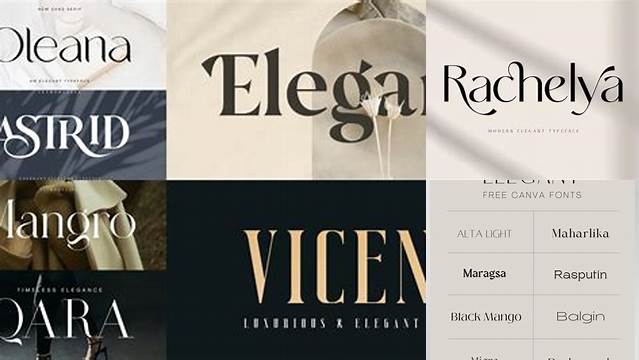
Free Modern Elegant Fonts: Download Now!
Hey guys! Are you on the hunt for modern elegant fonts that you can download for free? You've come to the right place! In this article, we’re diving deep into the world of typography, exploring a wide range of stylish fonts that can elevate your design projects. Whether you’re working on a website, a branding project, or a simple invitation, the right font can make all the difference. So, let’s get started and find the perfect typeface for your next masterpiece!
1. What Makes a Font “Modern Elegant”?
When we talk about modern elegant fonts, we’re usually referring to typefaces that blend contemporary design elements with classic sophistication. These fonts often feature clean lines, balanced letterforms, and a certain refinement that makes them stand out. Think about the fonts you see in high-end magazines or luxury brand logos – those are often excellent examples of modern elegance. They strike a balance between being stylish and readable, making them versatile for various applications. In essence, a modern elegant font should convey a sense of sophistication without feeling outdated or overly ornate. It’s about achieving a timeless look that still feels fresh and current.
2. Why Choose Modern Elegant Fonts for Your Projects?
Choosing modern elegant fonts for your projects can significantly impact the overall aesthetic and message you're trying to convey. These fonts often communicate sophistication, professionalism, and attention to detail. Using them can instantly elevate the perceived value of your brand or design. Imagine using a sleek, minimalist font for a business card versus a generic, overused typeface – the difference in impression is substantial. Moreover, modern elegant fonts are versatile, working well across various media from digital platforms to print materials. They provide a sense of polish and refinement that can help your content stand out in a crowded marketplace. So, if you’re aiming for a high-end, contemporary feel, these fonts are definitely the way to go!
3. Top Websites to Download Free Modern Elegant Fonts
Finding the best modern elegant fonts can sometimes feel like searching for a needle in a haystack, but don't worry, I've got you covered! There are several fantastic websites where you can download high-quality fonts for free. Some popular options include Google Fonts, which offers a vast library of open-source fonts perfect for any project. Another great resource is Font Squirrel, known for its curated selection of free fonts that are also commercially licensed. DaFont and Behance are also excellent places to discover unique and stylish typefaces. When browsing these sites, be sure to check the licensing terms to ensure the font is free for your intended use. Happy font hunting!
4. Popular Font Styles: Serif, Sans-Serif, and Script
When exploring modern elegant fonts, you'll quickly encounter different font styles like serif, sans-serif, and script. Each style brings its own unique flavor to the table. Serif fonts, with their little decorative strokes, often convey a sense of tradition and formality. Think of fonts like Times New Roman or Garamond. Sans-serif fonts, on the other hand, are more minimalist and contemporary, perfect for a clean and modern look. Arial and Helvetica are classic examples. Script fonts mimic handwriting and can add a touch of elegance and personality, but they should be used sparingly to maintain readability. Understanding these differences will help you choose the modern elegant font that best fits your project's needs and style.
5. Modern Serif Fonts for a Classic Touch
If you’re aiming for a touch of classic sophistication, modern serif fonts are an excellent choice. These fonts blend the traditional elegance of serifs with contemporary design principles. Think of fonts like Playfair Display or Lora, which feature graceful letterforms and a refined appearance. Modern serif fonts work wonderfully for headlines, body text, and branding materials where you want to convey a sense of history and sophistication without feeling dated. They add a touch of formality and readability, making them a versatile option for various projects. Whether you’re designing a book cover, a website, or a logo, a well-chosen modern serif font can truly elevate your design.
6. Sans-Serif Fonts: Clean and Contemporary
For a clean, minimalist, and contemporary look, sans-serif fonts are the way to go. These fonts lack the decorative strokes (serifs) found in traditional typefaces, giving them a streamlined and modern appearance. Popular examples include Montserrat, Open Sans, and Lato. Sans-serif fonts are incredibly versatile and work well in a variety of contexts, from website body text to logo designs. Their simplicity makes them highly readable, especially on screens, making them a favorite choice for digital projects. If you want your design to feel fresh, modern, and approachable, a well-chosen sans-serif font is an excellent starting point.
7. Elegant Script Fonts for Special Occasions
When you want to add a touch of personality and flair, elegant script fonts are the perfect choice. These fonts mimic the fluidity of handwriting, bringing a sense of sophistication and charm to your designs. Think of fonts like Great Vibes, Pacifico, or Allura. Elegant script fonts are ideal for invitations, wedding materials, and branding projects where you want to convey a sense of warmth and personal touch. However, it’s important to use them sparingly, as they can be less readable in large blocks of text. When used correctly, a beautiful script font can add a touch of magic to your project.
8. Monoline Fonts: Simplicity and Style
Monoline fonts are characterized by their consistent stroke weight, meaning the thickness of the lines remains uniform throughout the letters. This gives them a clean, minimalist, and geometric appearance, making them a popular choice for modern designs. Monoline fonts often convey a sense of simplicity and style, perfect for logos, headlines, and branding materials. They are highly readable and work well in both digital and print contexts. If you’re looking for a font that is both modern and understated, exploring monoline options like Montserrat or Raleway could be a great choice.
9. Geometric Fonts: Modern and Structured
Geometric fonts are built on basic geometric shapes like circles, squares, and triangles. This construction gives them a structured, modern, and often futuristic feel. Fonts like Futura, Avant Garde, and Gotham are classic examples of this style. Geometric fonts are highly versatile and work well for logos, headlines, and body text, especially in designs that aim for a clean and minimalist aesthetic. They convey a sense of precision and order, making them an excellent choice for tech companies, corporate branding, and contemporary designs.
10. Minimalist Fonts: Less is More
In the world of design, sometimes less is more, and minimalist fonts perfectly embody this philosophy. These fonts are characterized by their simplicity, clean lines, and lack of embellishment. They prioritize readability and functionality, making them a popular choice for modern websites, logos, and branding materials. Minimalist fonts like Helvetica, Open Sans, and Lato offer a timeless aesthetic that can help your message stand out without unnecessary distractions. If you’re aiming for a sleek, uncluttered design, minimalist fonts are a fantastic option.
11. Best Free Fonts for Headlines
Headlines are your chance to grab attention, so choosing the right font is crucial. The best free fonts for headlines are those that are bold, legible, and make a statement. Think about fonts like Bebas Neue, Montserrat, or Oswald. These typefaces have strong personalities and can draw the reader’s eye. When selecting a free font for headlines, consider the overall tone and style of your project. A modern sans-serif might be perfect for a tech blog, while a more elegant serif font could suit a lifestyle magazine. The key is to find a font that communicates your message clearly and effectively.
12. Top Free Fonts for Body Text
Readability is king when it comes to body text, so you’ll want to choose fonts that are easy on the eyes. Some of the top free fonts for body text include Open Sans, Lato, and Roboto. These fonts are designed for comfortable reading, even in long passages. They feature clean, simple letterforms and generous spacing. When selecting free fonts for body text, consider the overall aesthetic of your project. A sans-serif font is often a safe bet for online content, while a classic serif like Times New Roman can work well in print. Ultimately, the best font is the one that makes your content accessible and enjoyable to read.
13. How to Pair Modern Elegant Fonts
Pairing fonts effectively is an art, but it’s essential for creating a cohesive and visually appealing design. When working with modern elegant fonts, a good rule of thumb is to combine a serif font with a sans-serif font. For example, you might pair a bold serif font for headlines with a clean sans-serif for body text. This creates a pleasing contrast while maintaining readability. Another approach is to use different weights and styles within the same font family. For instance, using a bold version of a font for headings and a lighter version for body text can create a harmonious look. The key is to ensure that the fonts complement each other and enhance the overall aesthetic of your design.
14. Font Licensing: What You Need to Know
Understanding font licensing is crucial before you start using any font in your projects. Font licenses dictate how you can legally use a particular typeface. Some fonts are free for personal use only, while others can be used commercially. Always check the licensing terms before downloading and using a font. Many websites that offer free modern elegant fonts will clearly state the license type. Common licenses include Open Font License (OFL), which allows for free commercial use, and various types of shareware or freeware licenses that may have restrictions. Ignoring font licenses can lead to legal issues, so it’s always better to be informed.
15. Tips for Choosing the Right Font for Your Brand
Selecting the right font for your brand is a critical step in establishing your visual identity. Your font choice should align with your brand’s personality, values, and target audience. For modern elegant fonts, consider how the typeface conveys sophistication and professionalism. A sleek sans-serif font might be perfect for a tech startup, while an elegant serif could suit a luxury brand. Think about your brand’s message and how the font can reinforce it. Test different fonts and get feedback to ensure your choice resonates with your audience and accurately represents your brand.
16. Font Size and Readability Considerations
Choosing the right font is just one part of the equation; you also need to consider font size and readability. Even the most beautiful modern elegant fonts can be rendered ineffective if they are too small or difficult to read. For body text, aim for a font size that is comfortable to read on various devices, typically around 16-18 pixels for web content. Headlines should be larger and bolder to grab attention. Pay attention to line height and letter spacing, as these can significantly impact readability. Always test your font choices on different screens and devices to ensure they look good and are easy to read.
17. Kerning, Leading, and Tracking: Key Typography Terms
To truly master typography, it’s helpful to understand terms like kerning, leading, and tracking. Kerning refers to the spacing between individual letters, and adjusting it can improve readability and visual harmony. Leading (pronounced “ledding”) is the vertical space between lines of text, and proper leading can make long passages easier to read. Tracking, also known as letter-spacing, is the uniform spacing between all letters in a word or block of text. Mastering these concepts will help you fine-tune your modern elegant fonts and create professional-looking designs.
18. How to Install Fonts on Windows and macOS
Once you’ve downloaded your free modern elegant fonts, you’ll need to install them on your computer. The process is straightforward on both Windows and macOS. On Windows, simply right-click the font file and select “Install.” On macOS, double-click the font file, and it will open in Font Book, where you can click “Install Font.” After installation, the font should be available in your design software. If you encounter any issues, restarting your computer or design program can often resolve the problem. Now you’re ready to start using your new fonts!
19. Using Font Management Software
If you work with a lot of fonts, using font management software can be a game-changer. These tools help you organize, activate, and deactivate fonts, making it easier to find and use the modern elegant fonts you need. Popular options include FontBase, NexusFont, and RightFont. Font management software can also help you avoid font conflicts and keep your system running smoothly. They often offer features like font previews, tagging, and syncing across devices. Investing in a good font manager can save you time and frustration in the long run.
20. Creating a Font Mood Board
Before diving into a design project, creating a font mood board can be a fantastic way to explore different typefaces and find the perfect fit. Gather examples of modern elegant fonts that you find appealing and arrange them in a visual collage. This can include screenshots of fonts used in existing designs, sample text in different typefaces, and color palettes that complement the fonts. A font mood board helps you visualize how different fonts work together and how they align with your project’s overall aesthetic. It’s a great way to inspire your creativity and make informed font choices.
21. Exploring Google Fonts: A Treasure Trove
Google Fonts is a true treasure trove for designers, offering a vast library of free modern elegant fonts that are perfect for any project. The best part? All Google Fonts are open-source and free for commercial use, making them a reliable choice for both personal and professional projects. With a wide variety of styles, from classic serifs to clean sans-serifs and elegant scripts, Google Fonts has something for everyone. Plus, they are incredibly easy to implement on websites, making them a popular choice for web designers. So, if you're looking for high-quality, free fonts, Google Fonts is definitely worth exploring.
22. Font Squirrel: Curated Free Fonts
Font Squirrel is another fantastic resource for free modern elegant fonts. What sets Font Squirrel apart is its curated selection of high-quality fonts that are also commercially licensed. This means you can use the fonts in your projects without worrying about legal issues. The website also offers a handy Font Identifier tool that can help you identify fonts you come across in the wild. Font Squirrel is a great place to discover unique and stylish typefaces that you won't find everywhere else, making it a valuable resource for designers looking to add a touch of originality to their work.
23. DaFont: A Diverse Font Collection
DaFont is a popular website known for its diverse collection of fonts, including many free modern elegant fonts. The site is organized into categories, making it easy to browse and find the style you're looking for. While DaFont offers a wide range of fonts, it's important to note that the licensing terms can vary. Some fonts are free for personal use only, while others are free for commercial use. Always check the license information before using a font in your project to ensure you're complying with the terms. Despite this, DaFont remains a valuable resource for discovering unique and creative typefaces.
24. Behance: Discovering Designer Fonts
Behance, Adobe's online platform for showcasing creative work, is also a great place to discover modern elegant fonts. Many designers share their font creations on Behance, often offering them for free download. This can be a fantastic way to find unique and high-quality typefaces that you won't find on mainstream font websites. When browsing Behance, be sure to check the licensing terms for each font, as they can vary. Behance is a valuable resource for designers looking to support independent creators and find distinctive fonts for their projects.
25. The Psychology of Fonts: How Typefaces Convey Emotion
Did you know that fonts can actually influence how people perceive your message? The psychology of fonts plays a significant role in design, and understanding it can help you choose the right modern elegant fonts for your projects. Serif fonts, for example, often convey a sense of tradition and authority, while sans-serif fonts tend to feel more modern and approachable. Script fonts can evoke feelings of elegance and creativity, while bold fonts can project confidence and strength. Consider the emotions and associations you want your brand or message to evoke, and choose fonts that align with those feelings. The right typeface can make a powerful impact on your audience.
26. Font Pairing Tools: Making the Right Combinations
Struggling to find the perfect font pairings? Font pairing tools can come to the rescue! These handy resources help you discover harmonious font combinations, making the process of choosing modern elegant fonts much easier. Websites like FontPair and Adobe Fonts offer curated font pairings that you can use as inspiration. These tools typically suggest combinations that balance readability and visual appeal, helping you create designs that are both stylish and effective. Using a font pairing tool can save you time and ensure that your font choices complement each other beautifully.
27. Font Anatomy: Understanding the Parts of a Letterform
To truly appreciate and select modern elegant fonts, it's helpful to understand the anatomy of a letterform. This includes terms like ascenders (the parts of letters that extend above the x-height, like the top of “h”), descenders (the parts that extend below the baseline, like the bottom of “p”), serifs (the small decorative strokes at the ends of letterforms), and the x-height (the height of the lowercase “x”). Understanding these elements allows you to better analyze and compare fonts, ensuring you choose typefaces that are both aesthetically pleasing and highly readable. Knowing the anatomy of a font empowers you to make informed design decisions.
28. Avoiding Common Font Mistakes
Choosing fonts can be tricky, and it's easy to make mistakes that can detract from your design. One common mistake is using too many fonts in a single project. Stick to a maximum of two or three fonts to maintain a cohesive look. Another error is choosing fonts that are too similar, which can create a visually flat design. Aim for contrast, but ensure the fonts still complement each other. Also, avoid using decorative or script fonts for large blocks of text, as they can be difficult to read. By being mindful of these common pitfalls, you can ensure your use of modern elegant fonts enhances your project.
29. Font Trends: What's Popular Now?
Font trends are constantly evolving, so it's helpful to stay informed about what's popular in the design world. Currently, modern elegant fonts that incorporate minimalist and geometric styles are trending, along with bold and impactful serifs. Monoline fonts and retro-inspired typefaces are also making a comeback. Keeping up with font trends can help you create designs that feel fresh and contemporary. However, it's essential to balance trends with timelessness, choosing fonts that will still look good in the years to come. Consider how current trends align with your brand's identity and message.
30. The Future of Typography: Emerging Trends
The future of typography is exciting, with emerging trends pushing the boundaries of what's possible. Variable fonts, which allow for a wide range of stylistic variations within a single font file, are gaining popularity. Interactive typography, where fonts respond to user actions, is also on the rise. Expect to see more experimentation with 3D fonts and typefaces that incorporate animation and motion. As technology evolves, typography will continue to play a crucial role in communication and design. Staying informed about these emerging trends can help you leverage modern elegant fonts in innovative ways.